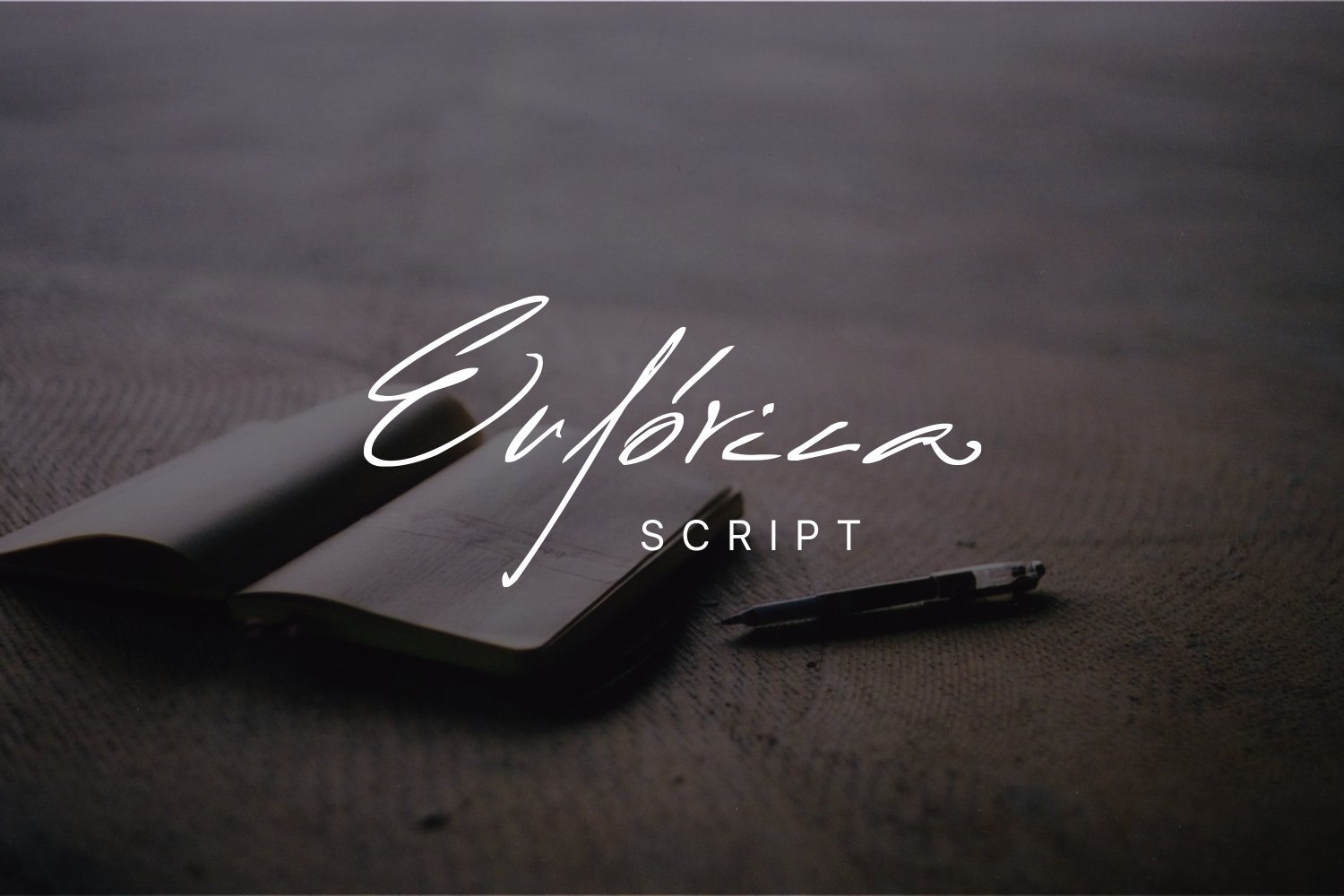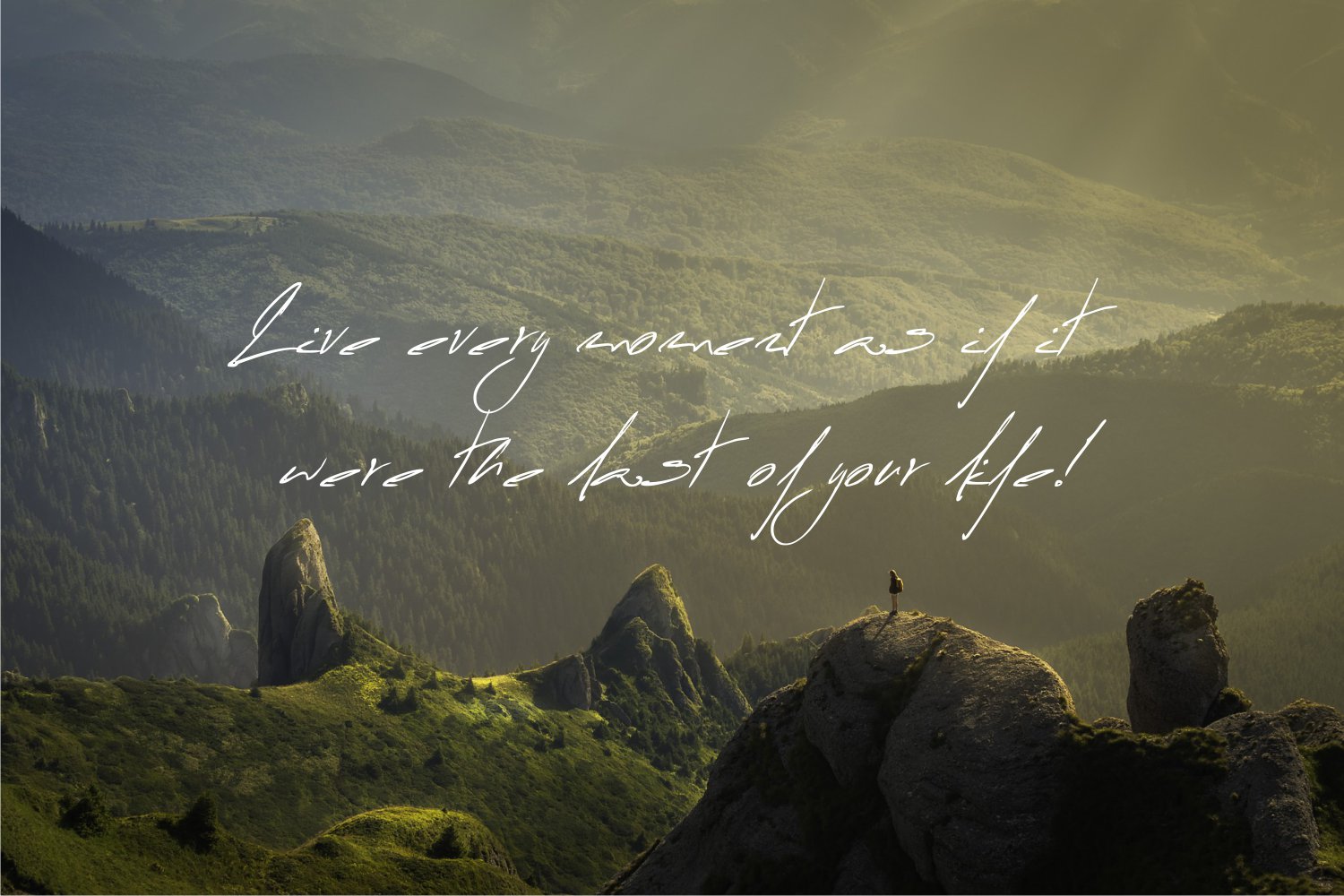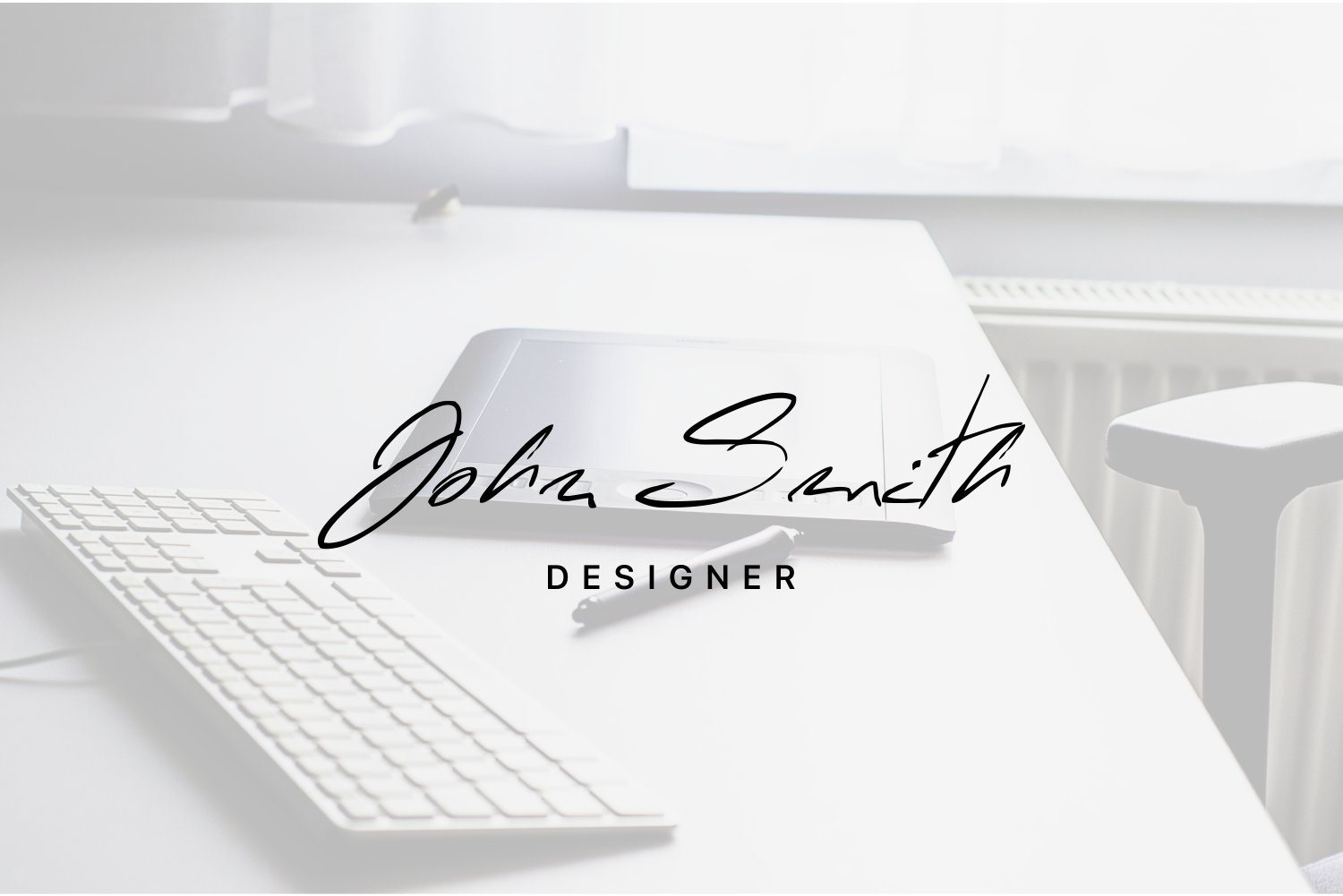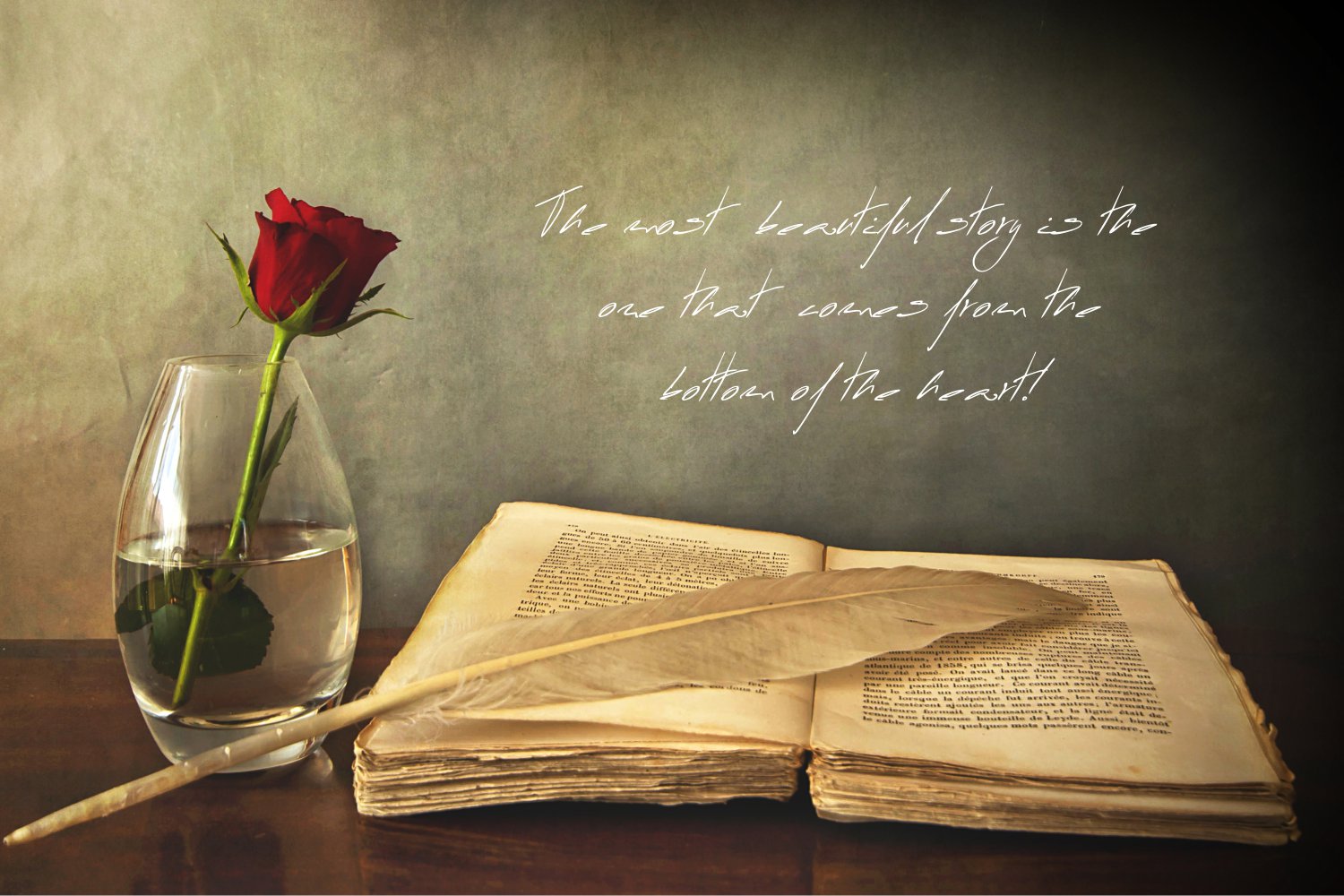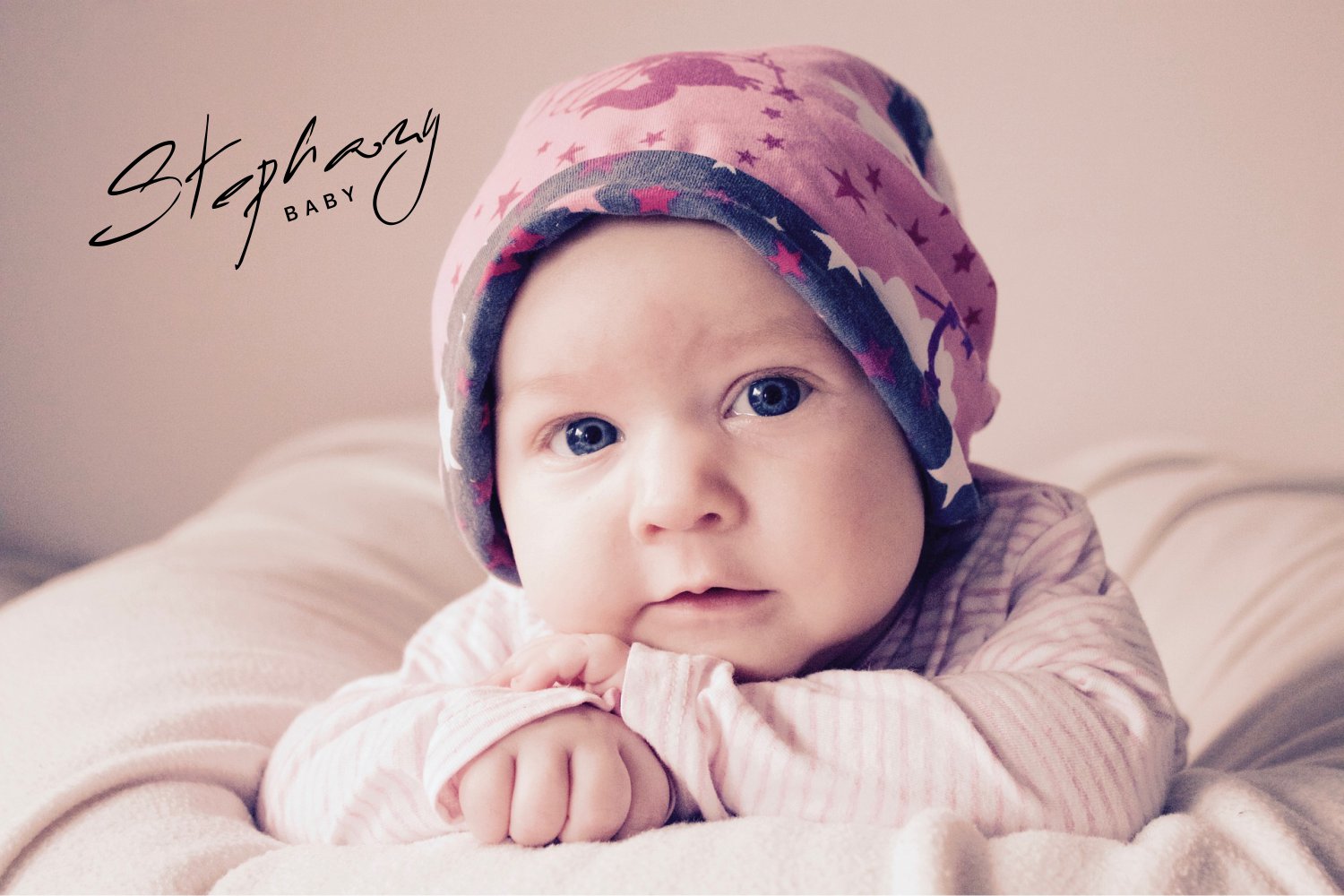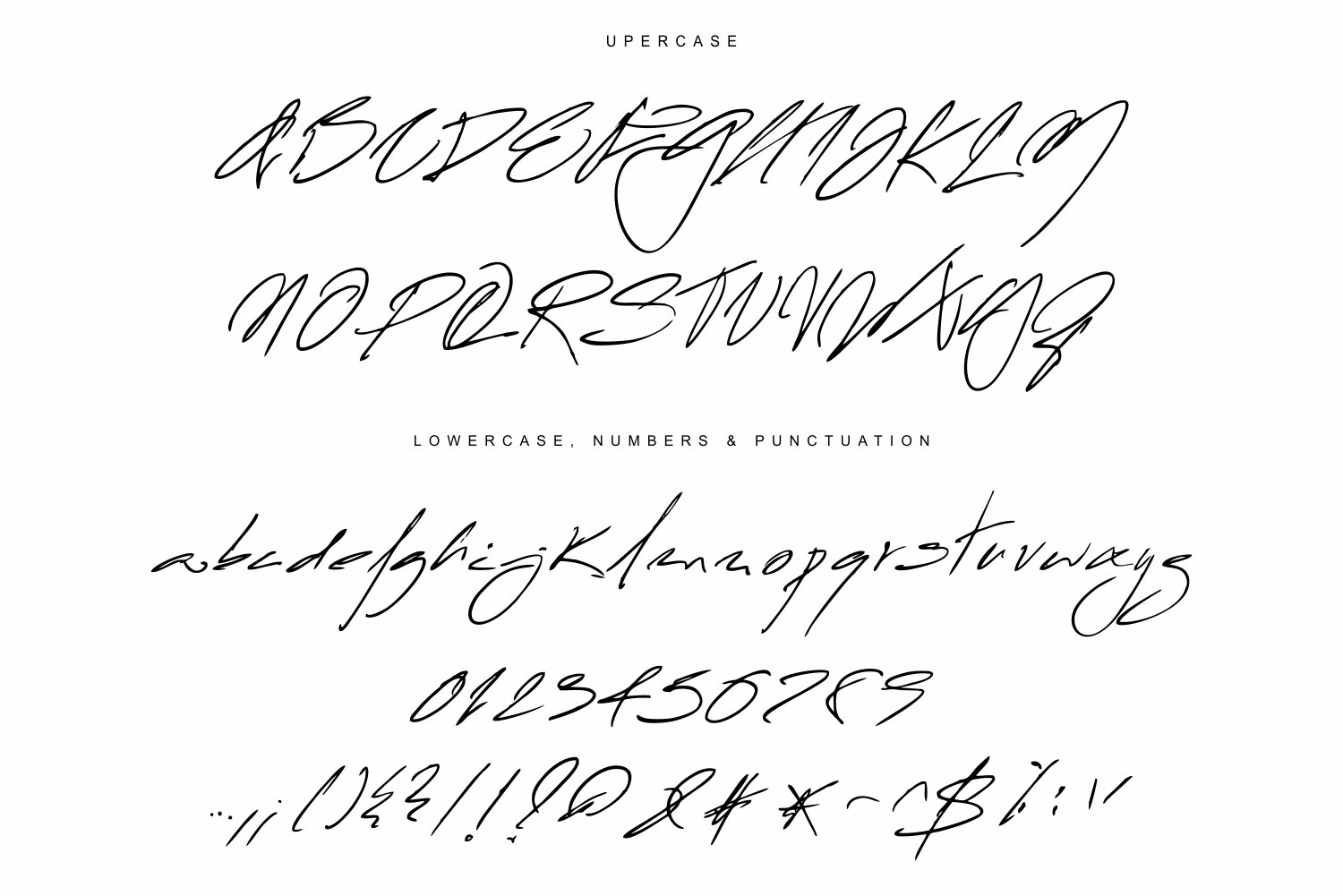
Euforica Font
About Euforica Font
Euforica is a beautiful and angular script font, handwritten to give a personal touch to your designs and projects. Euforica is versatile enough to add a sleek edge or warmth to your designs.